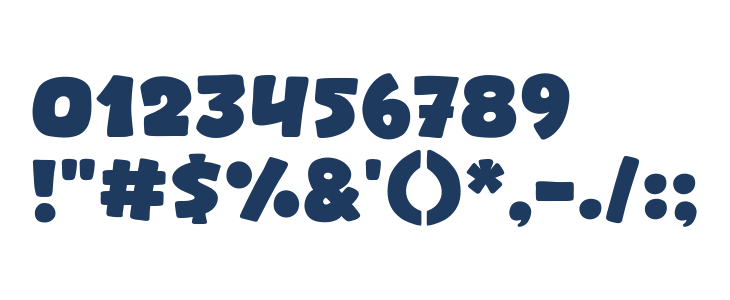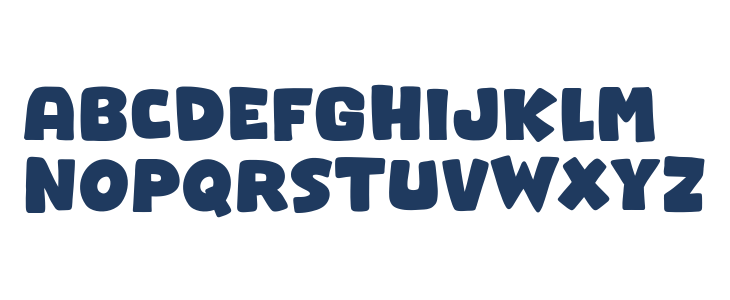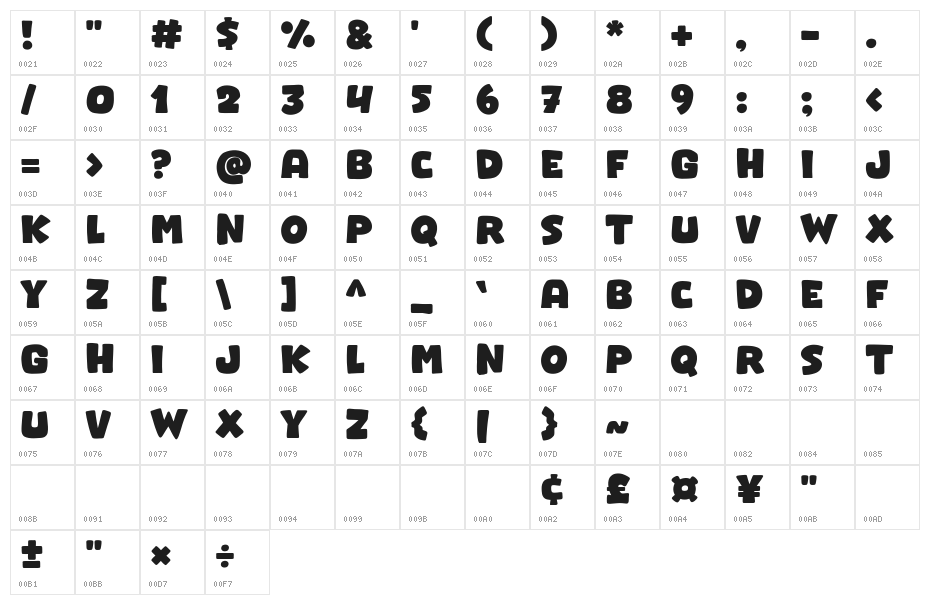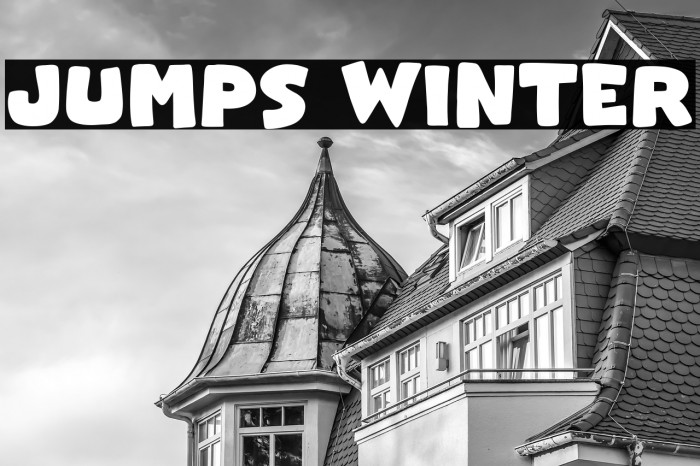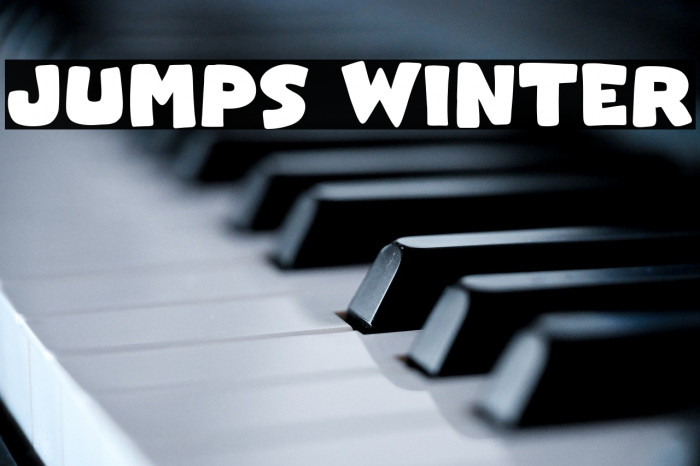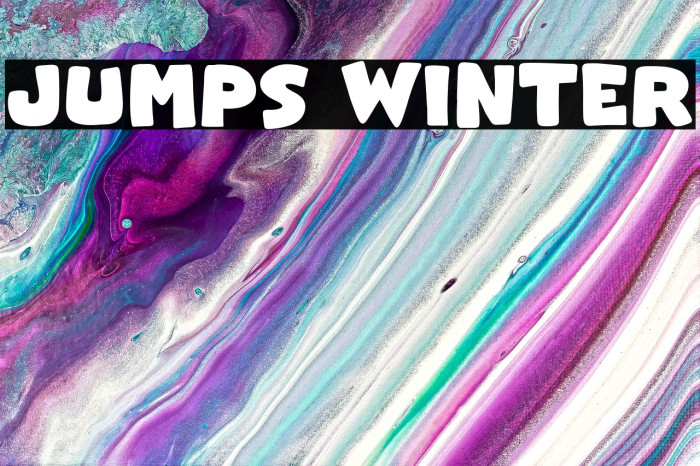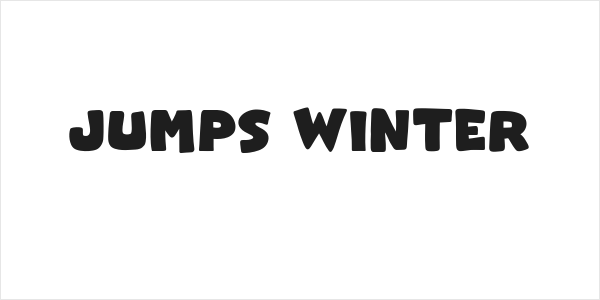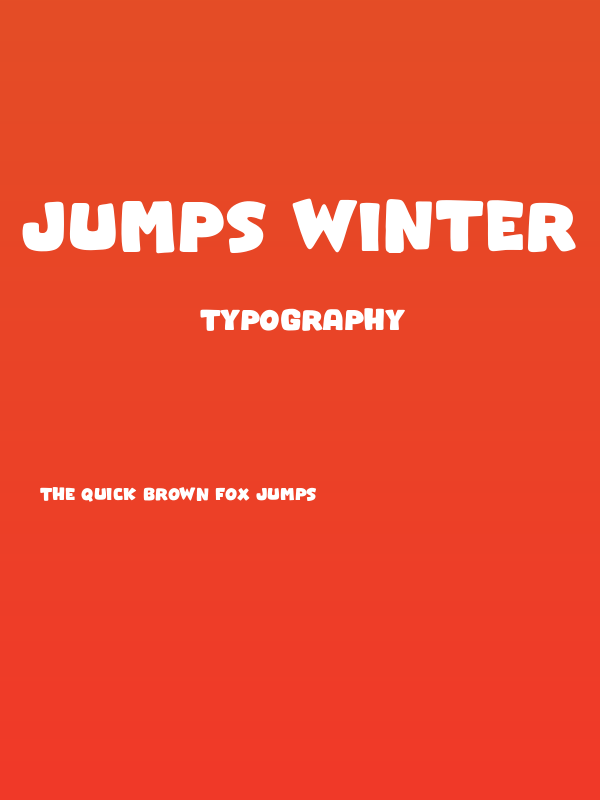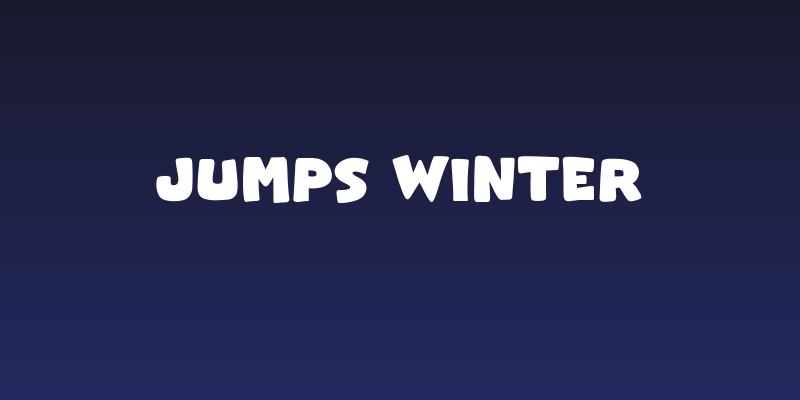
Jumps Winter Font
Jumps Winter Description
A bold, playful sans-serif font with rounded edges and slightly irregular shapes, giving it a hand-drawn, casual appearance. The characters are thick and have a chunky, friendly feel.
Overall StylePlayful, Casual
Use CaseHeadlines, Logos, Display text
Proposed ProjectsChildren's books, playful branding, posters, greeting cards, and informal invitations.